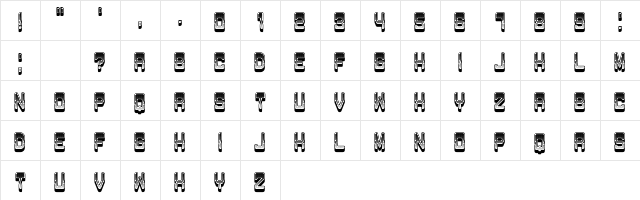
Passage Gradient Regular
Design Context for Passage Gradient
Passage Gradient is a composed and adaptable typeface that performs quietly and consistently across a wide range of design contexts.
Pro Tip: Use Passage Gradient in both headline and body roles to test its range before committing to a single application.